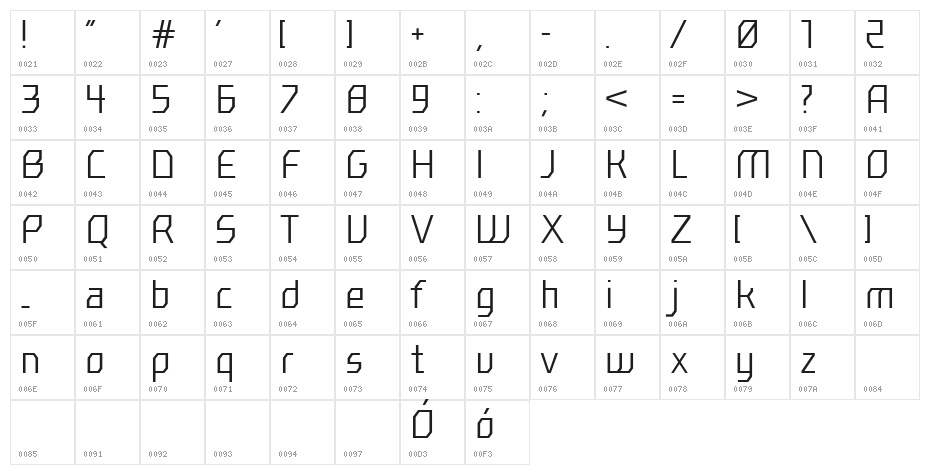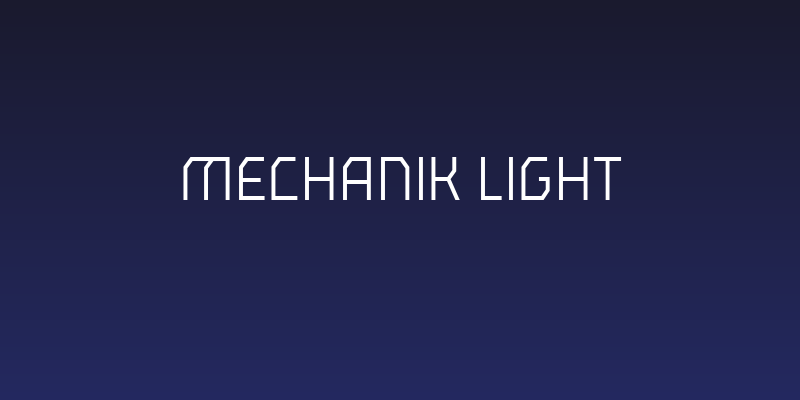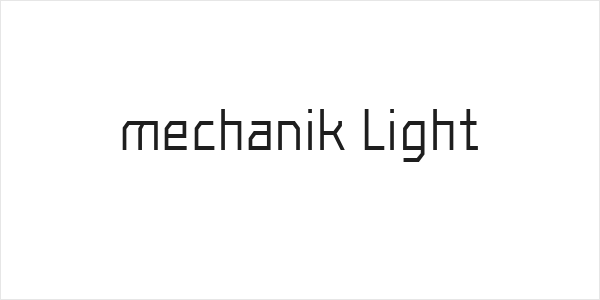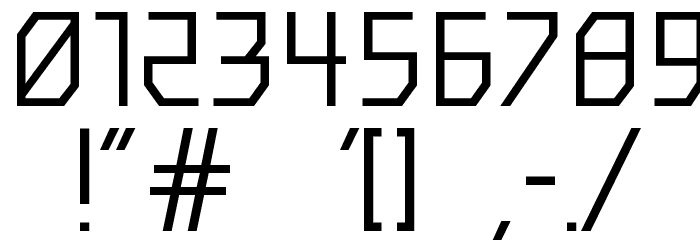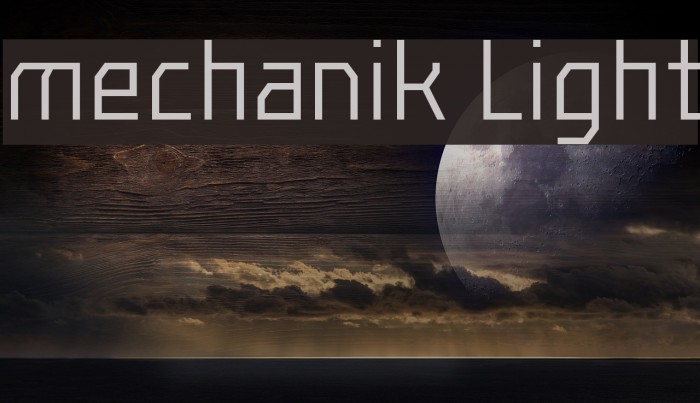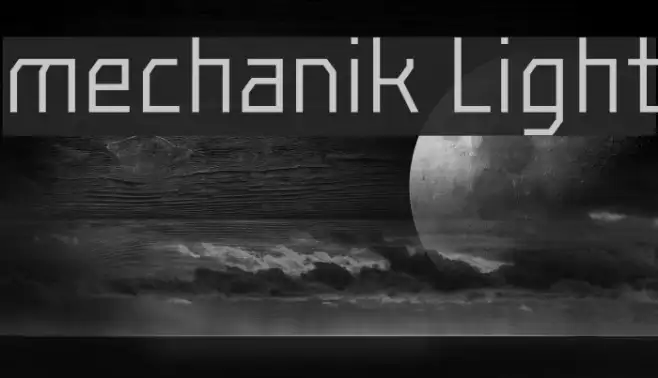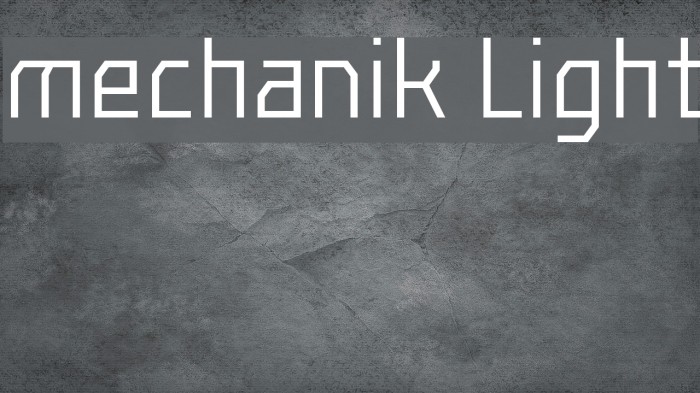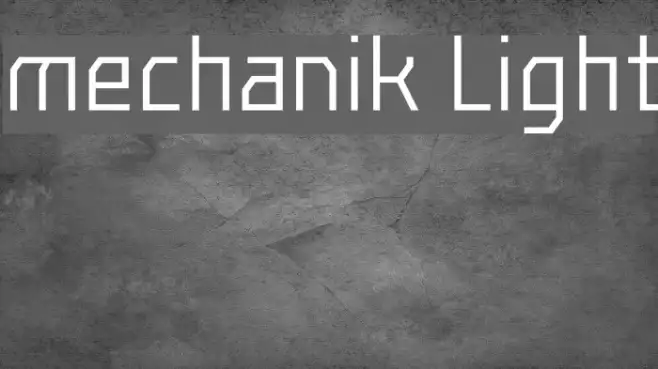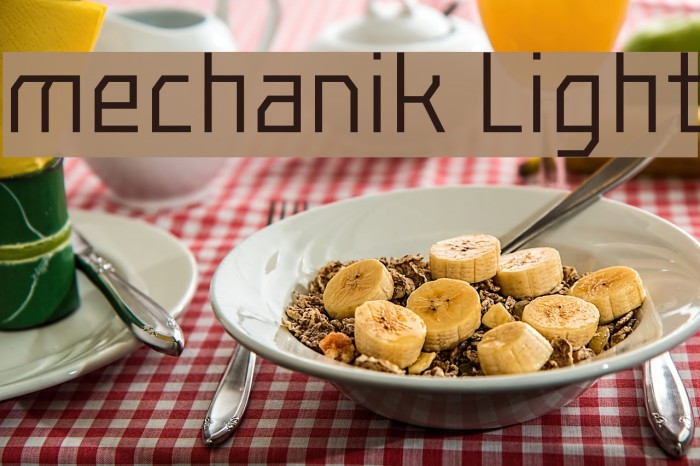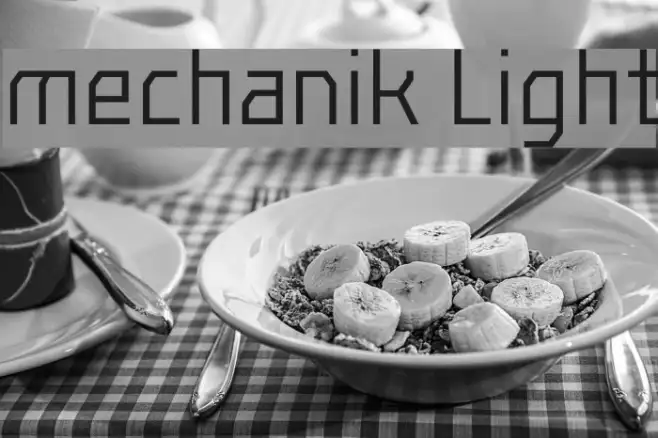
mechanik Light Font
mechanik Light Description
This font features a geometric and mechanical design, characterized by its angular and structured letterforms. The characters exhibit a uniform stroke width, giving it a clean and precise appearance. The uppercase and lowercase letters maintain a consistent style, with sharp edges and a modern aesthetic. The numerals and special characters are designed to match the overall geometric theme, making it suitable for technical or industrial-themed projects. The font's design is both functional and visually striking, offering a unique blend of modernity and readability.
| Use Case | Headlines, Logos, Technical documents |
| Proposed Projects | Ideal for technical documents, industrial-themed branding, modern posters, and digital interfaces. |